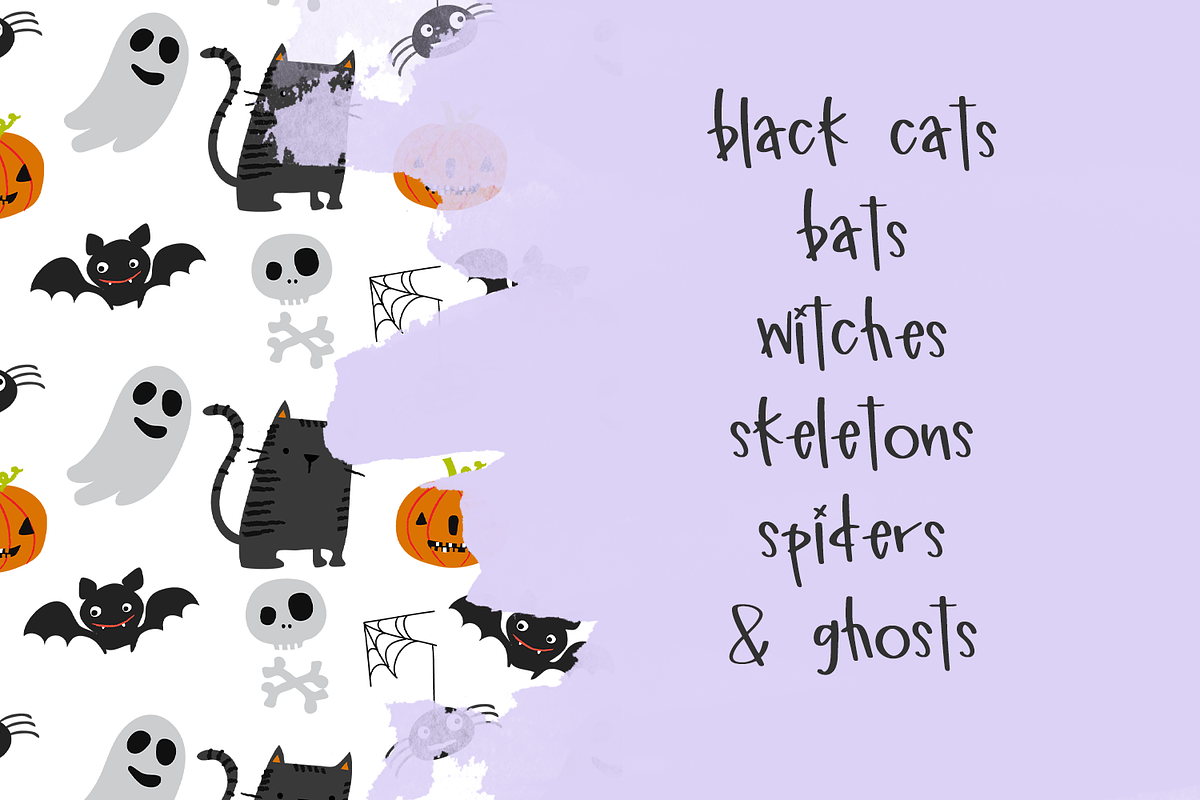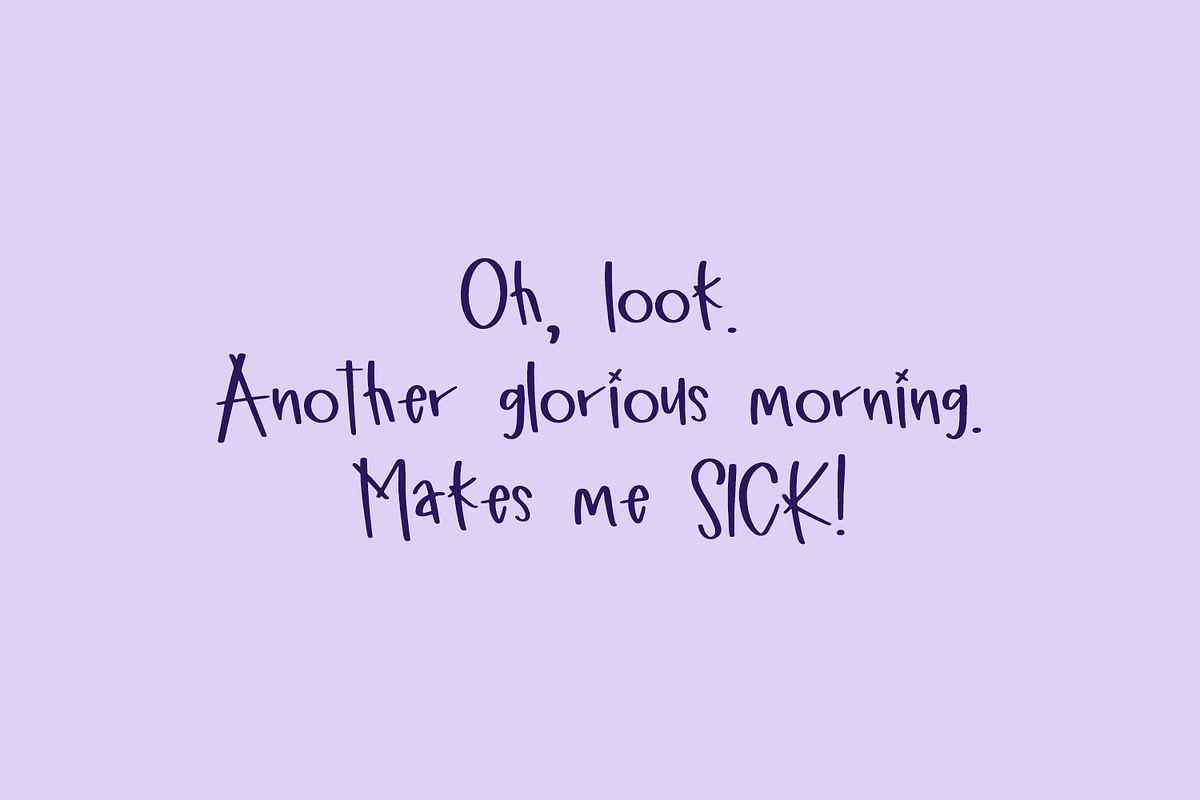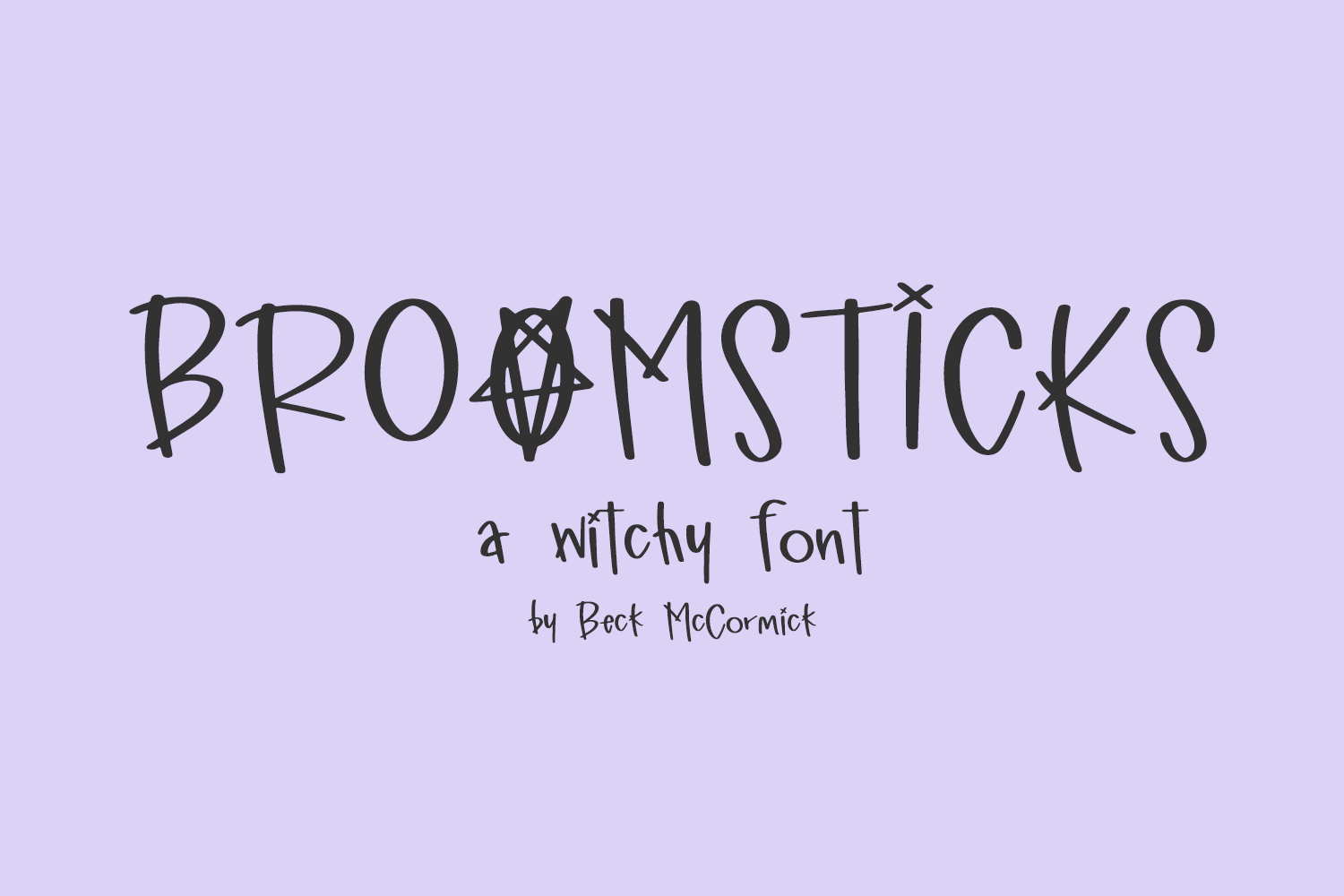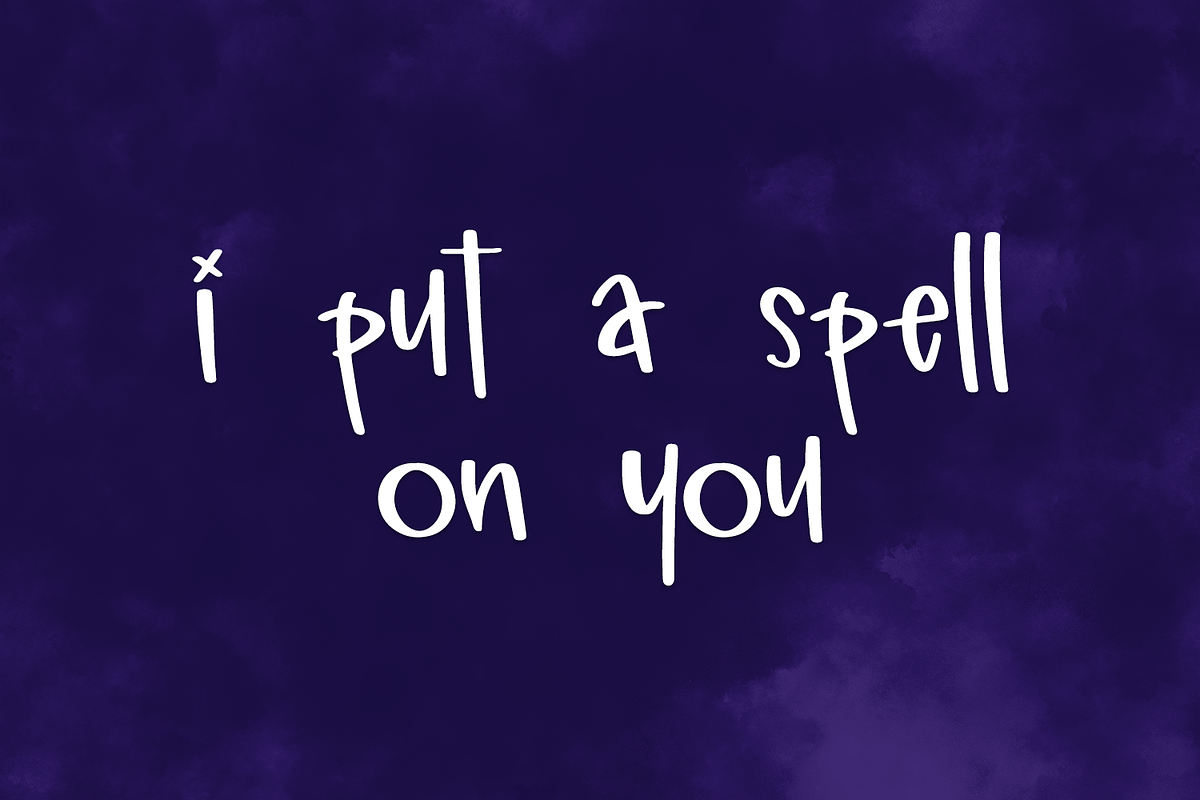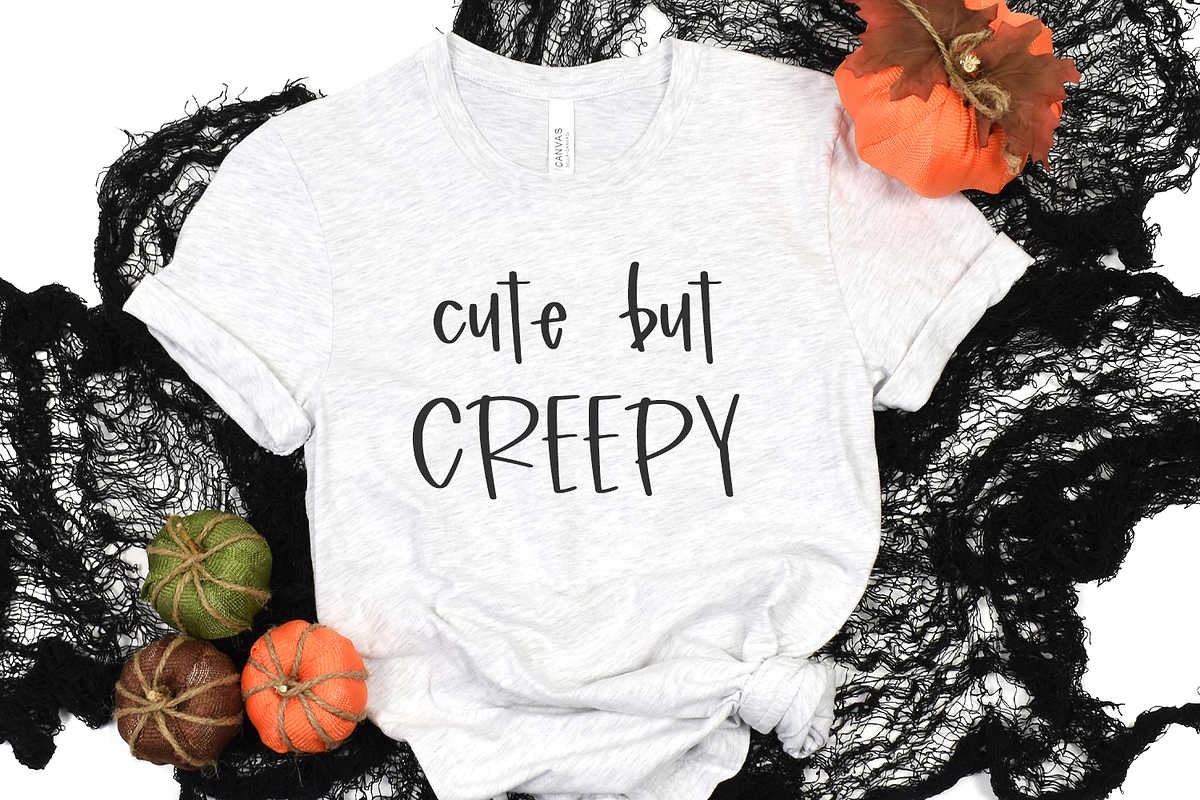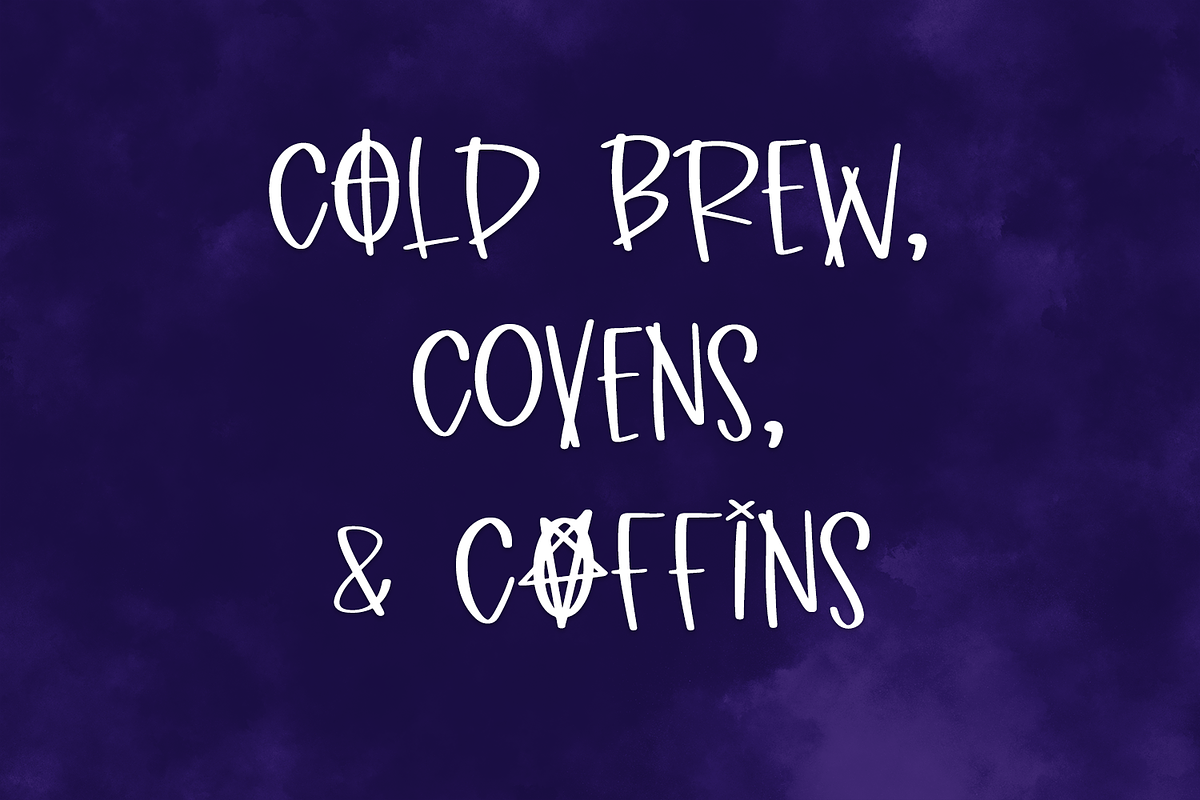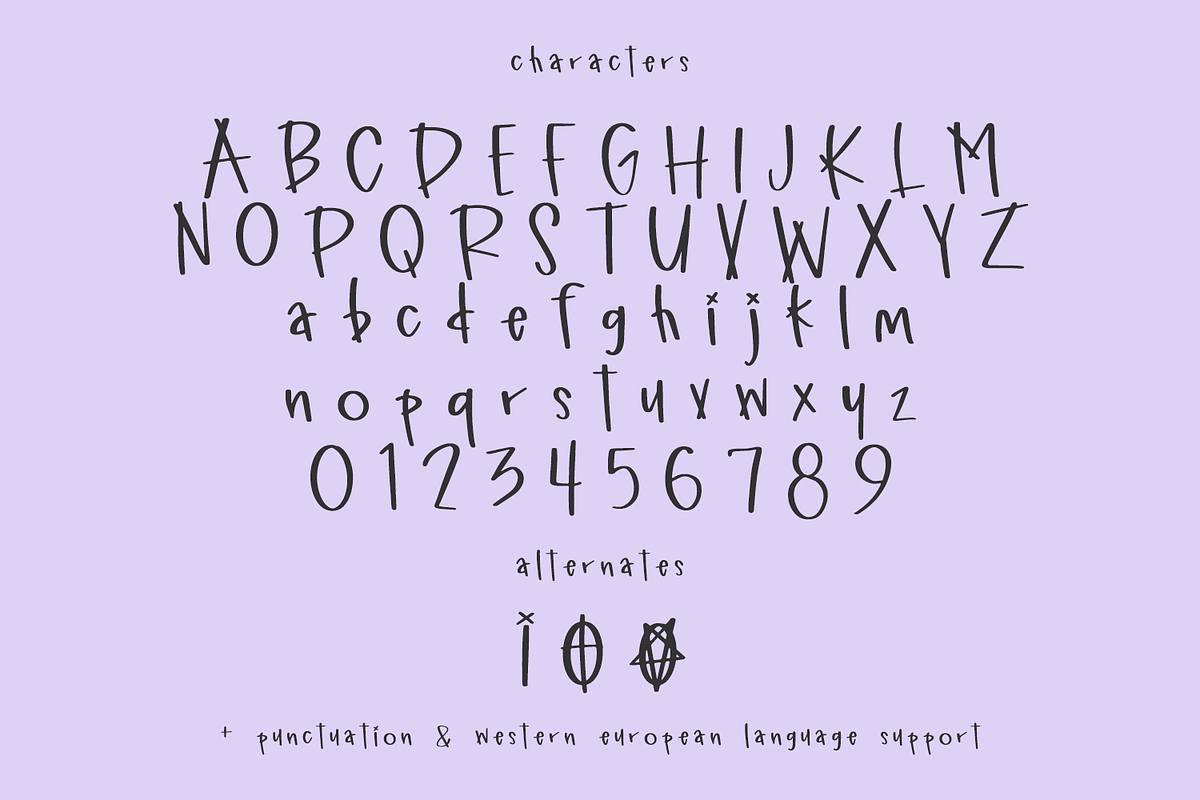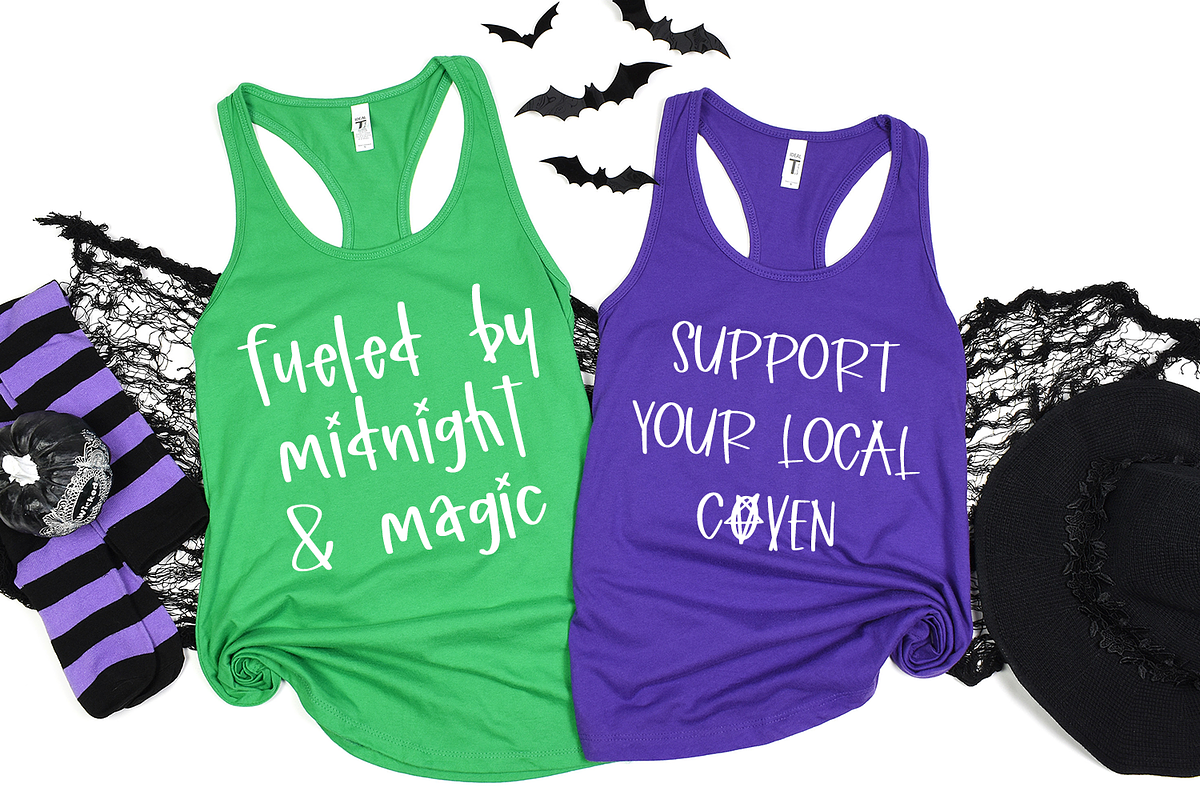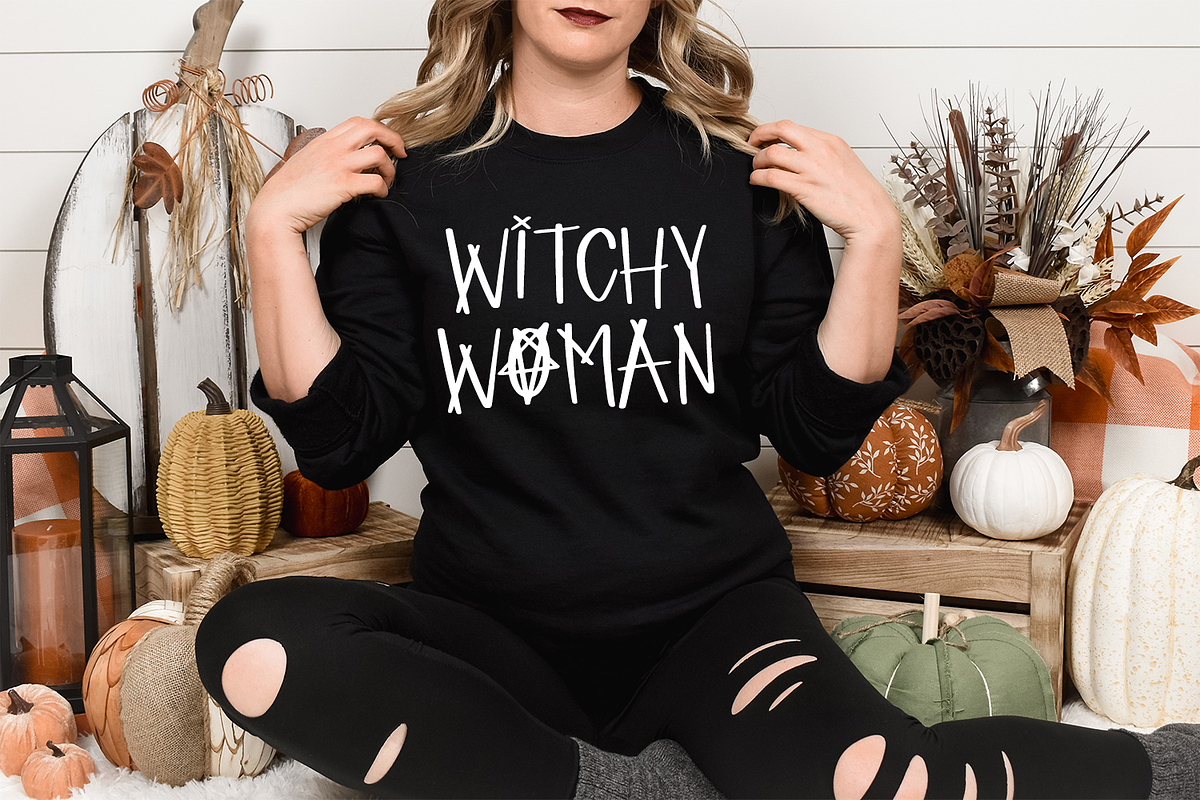
Broomsticks Witchy Font
Broomsticks Witchy Font is a spooky, scary font designed with all of your Halloween projects in mind! If youโre looking to add a little occult edge to your next project, Broomsticks is the font for you. Broomsticks is perfect for witchy home decor projects, your Cricut or Silhouette machine, scary logo or branding projects & marketing materials, social media graphics, & more!
Broomsticks Witchy Sans includes:
- full upper + lowercase characters
- numbers + punctuation
- 3 alternate characters - I, O (2x)
- Western European language support